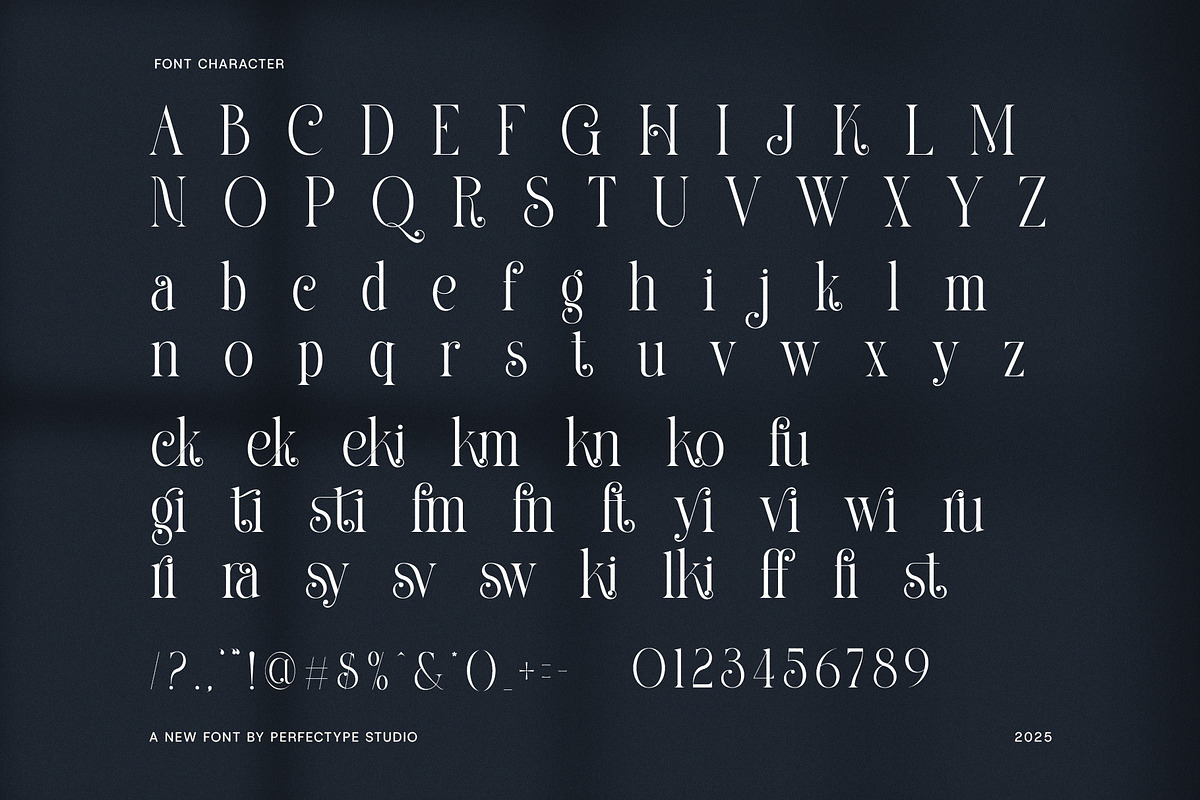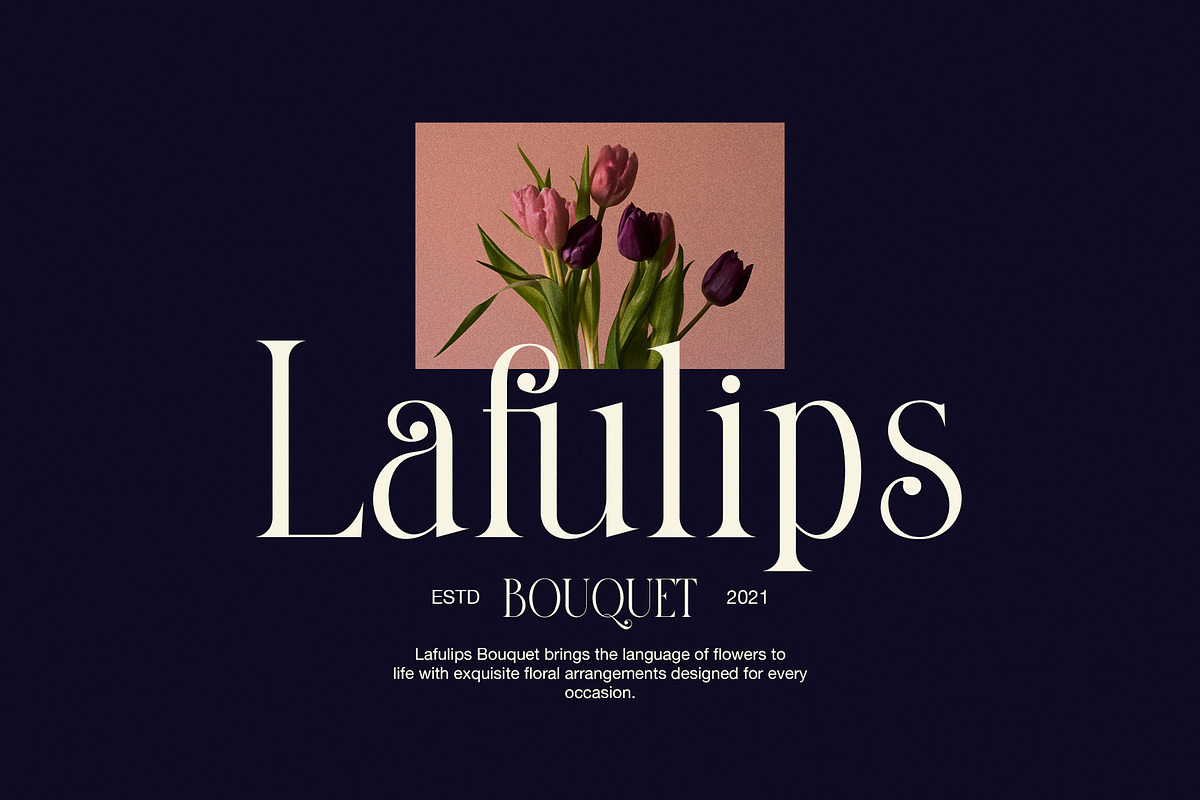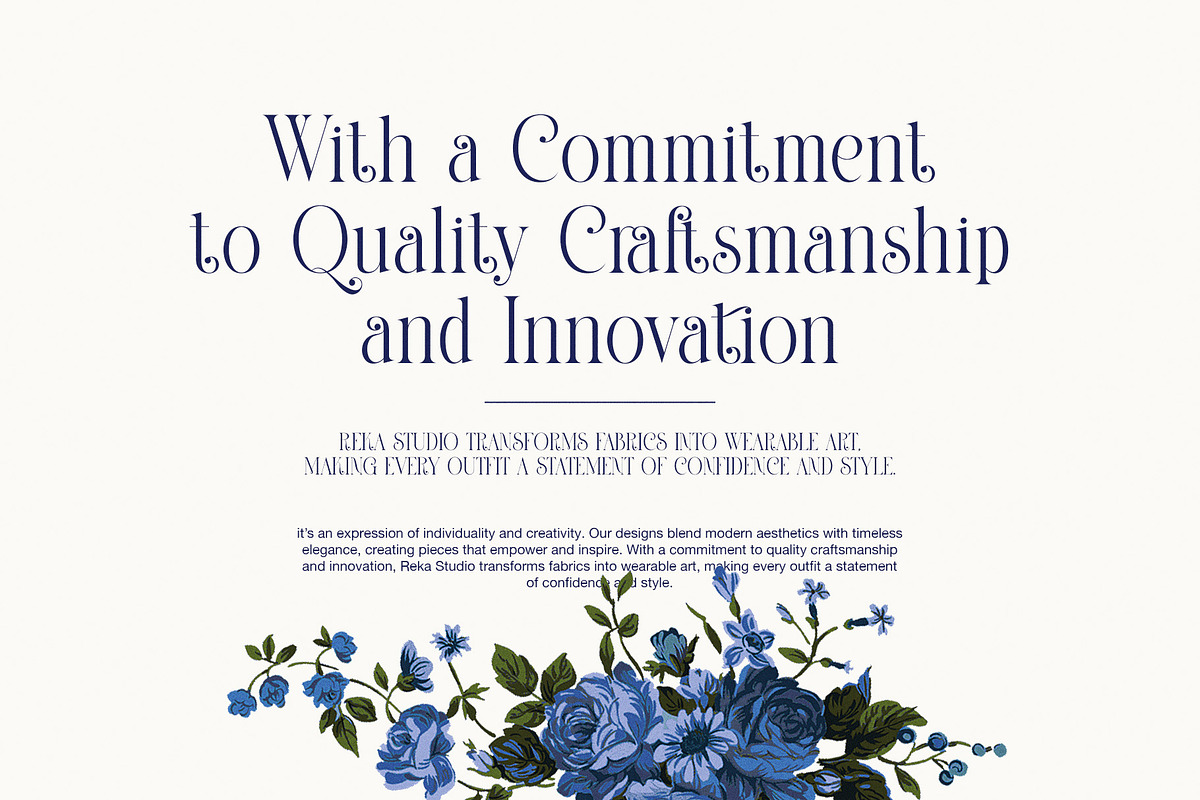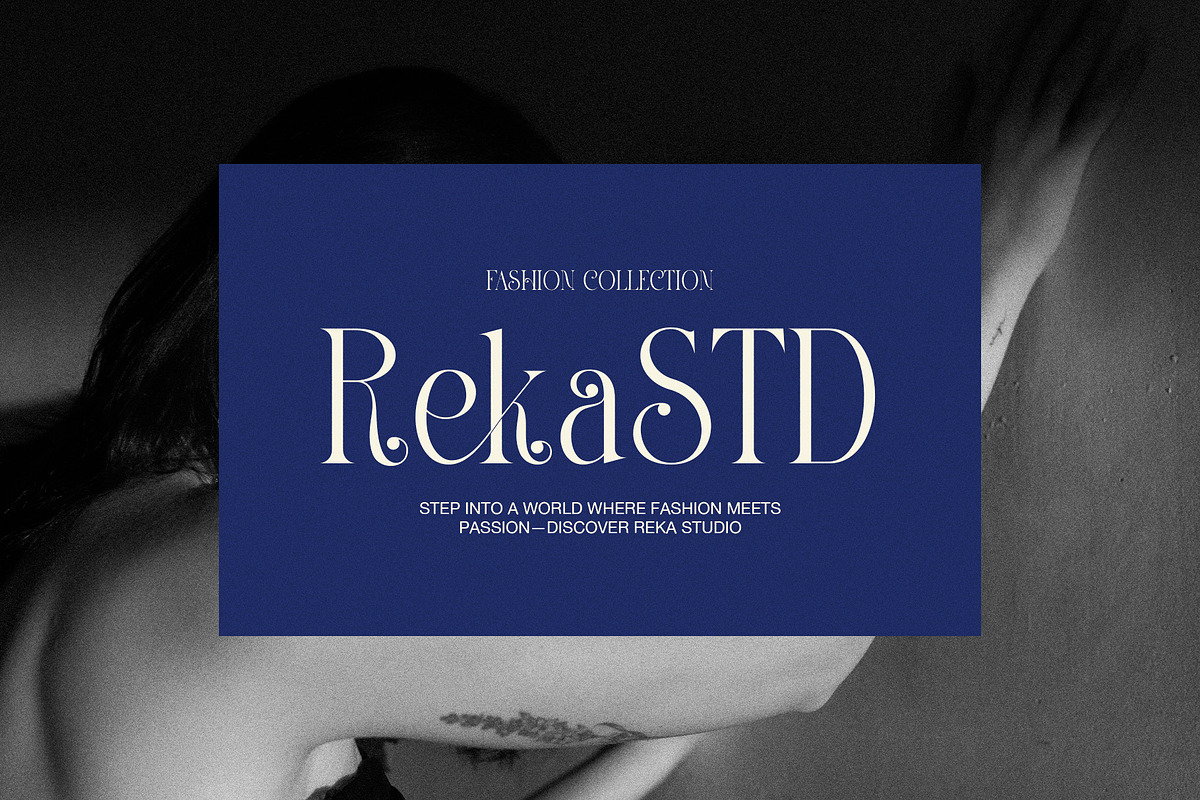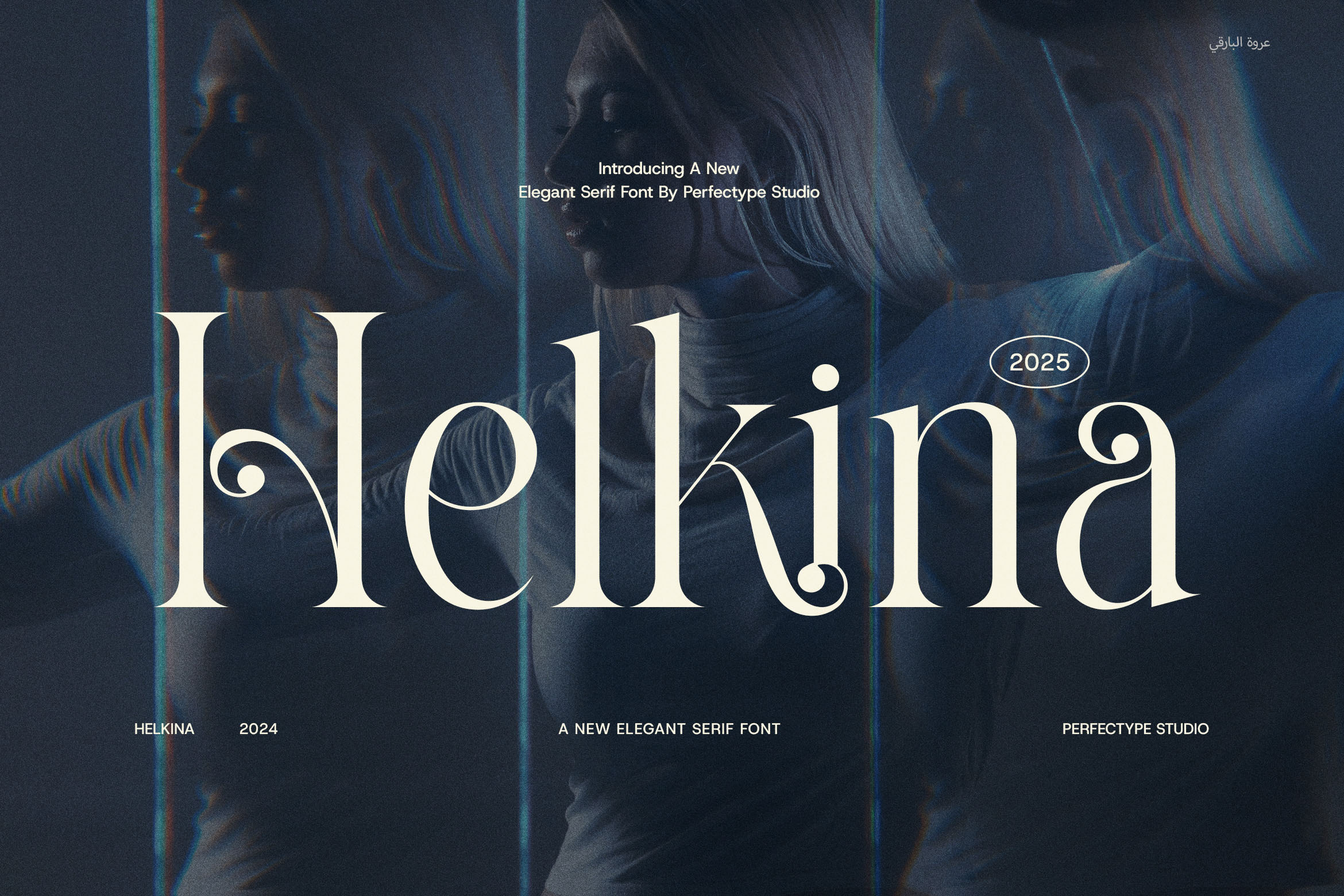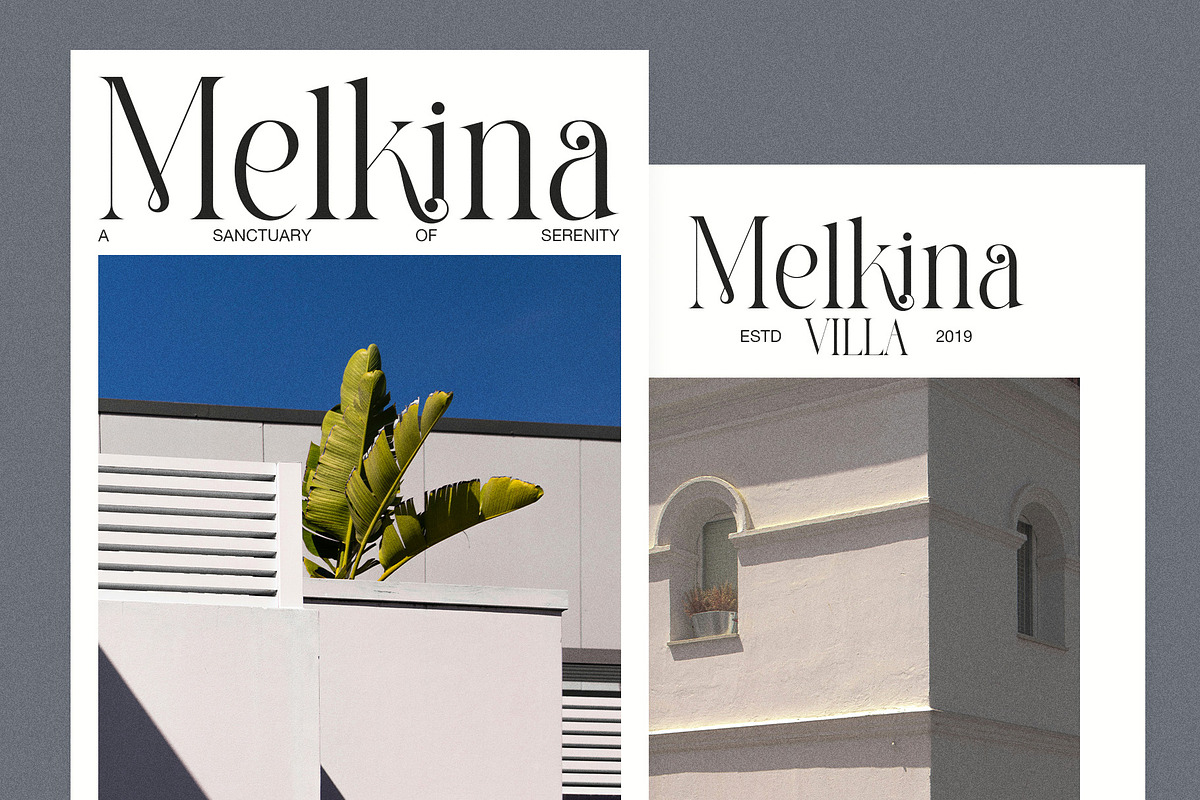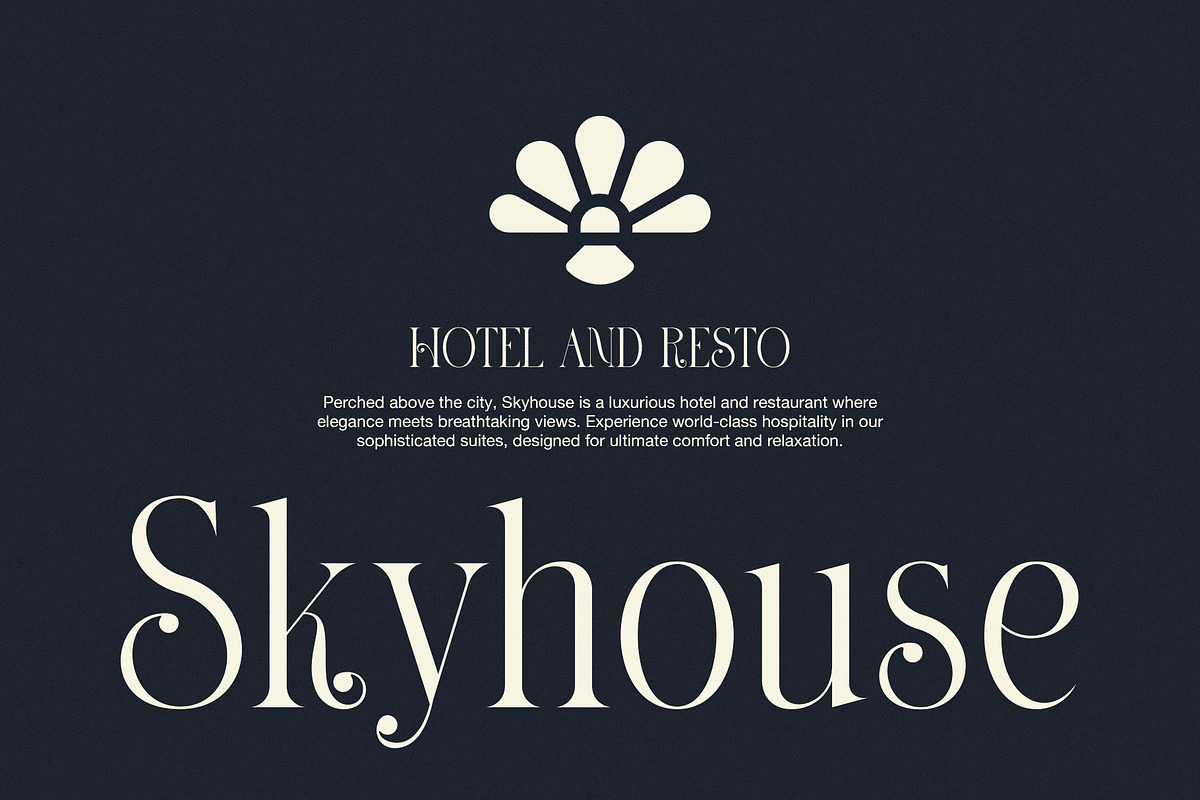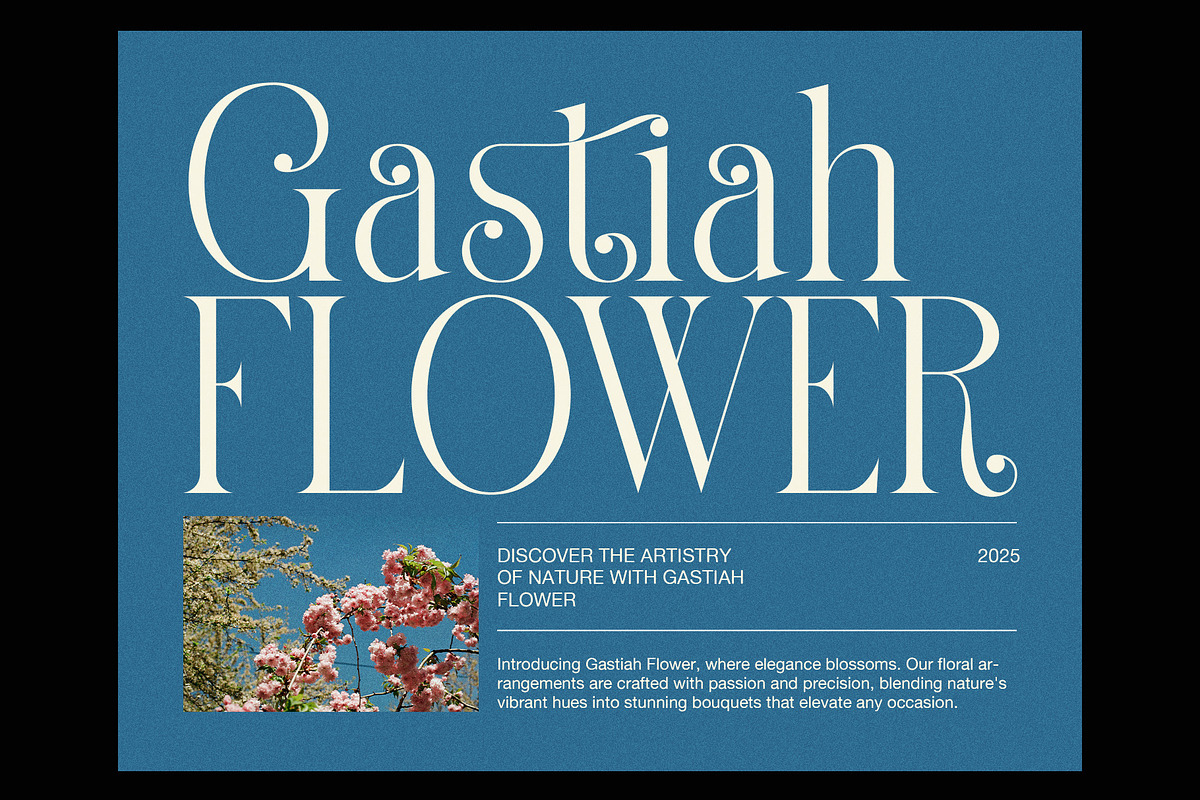
Helkina Stylish Serif Font
Helkina Stylish Serif Font is a modern serif typeface that blends classic elegance with a contemporary edge. Designed for designers who appreciate sophistication with a twist, Helkina features graceful letterforms, stylish ligatures, and unique alternate characters that bring personality and flair to every project.
With its refined curves and bold contrast, Helkina strikes the perfect balance between timeless tradition and modern minimalism. The font’s clean structure makes it highly readable, while the artistic detailing—especially in the ligatures and alternates—adds an elevated, editorial look that feels upscale yet approachable.
Helkina is a go-to choice for creatives looking to infuse luxury and style into their visual identity. Whether you're working on high-end branding, magazine headlines, or website design, this font delivers a versatile and premium typographic experience.
Ideal for:
Modern logos and brand identities
Fashion and lifestyle editorials
Luxury packaging and labels
Website headers and UI design
Boutique product promotions
Invitations, menus, and advertising campaigns
Helkina Stylish Serif Font includes a complete set of uppercase and lowercase characters, multilingual support, numerals, punctuation, and a curated range of ligatures and stylistic alternates. These extras allow you to create bespoke typographic combinations, adding movement and style to your words effortlessly.
Whether used as a display font or paired with minimalist sans-serif companions, Helkina brings a premium, high-fashion feel to any layout. It’s the perfect serif for designers who want to make a bold yet elegant impression.
From editorial spreads to chic branding kits, Helkina Stylish Serif Font transforms ordinary text into a statement of sophistication. If you're looking for a typeface that radiates creativity, class, and modern elegance, Helkina is the font to elevate your next project.